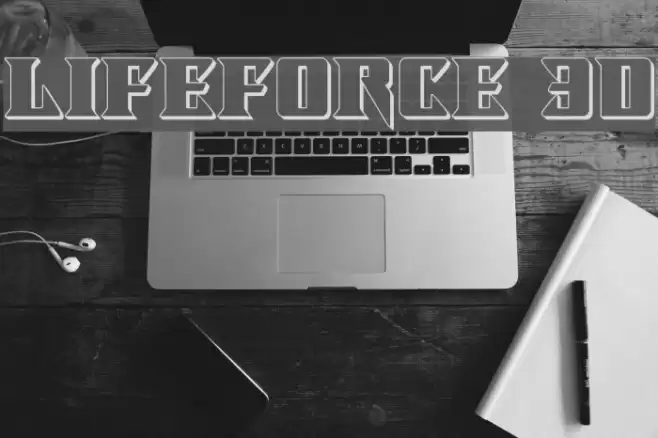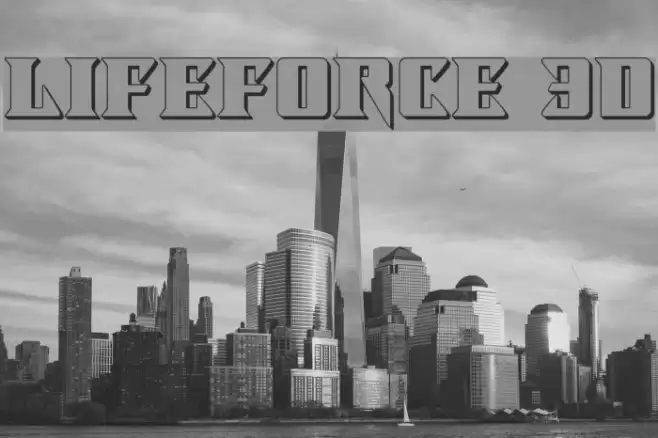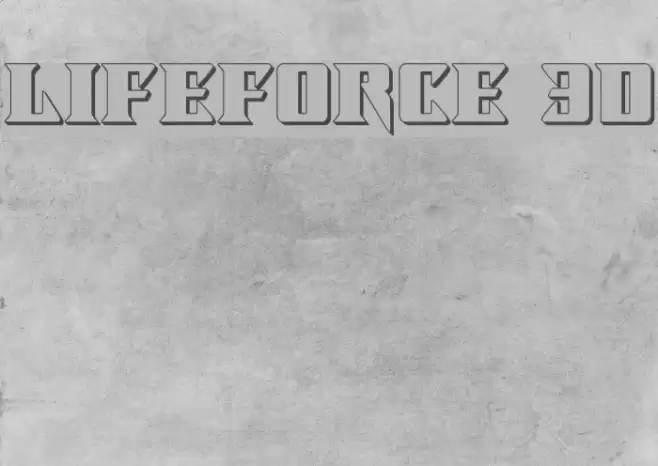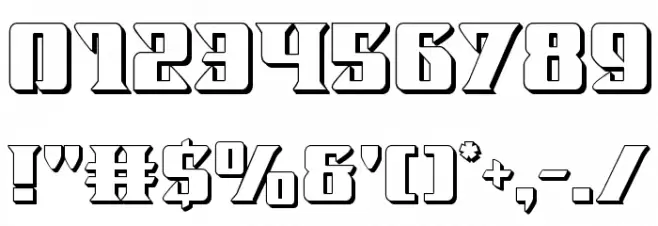
Lifeforce 3D Font
Lifeforce 3D Description
This font features a bold, three-dimensional design with a strong presence. The characters are outlined with a shadow effect, giving them a striking, embossed look. The angular and geometric shapes of the letters create a futuristic and dynamic appearance. The uppercase and lowercase letters maintain a consistent style, with sharp edges and a uniform thickness throughout. The numerals and special characters follow the same design principles, ensuring a cohesive look across all glyphs. This font is ideal for projects that require a bold and impactful visual statement.
A bold, 3D font with angular, geometric shapes and a shadow effect from Uncategorized fonts.
- Proposed Projects: Ideal for video game titles, movie posters, branding for tech companies, and any project needing a futuristic and bold aesthetic.